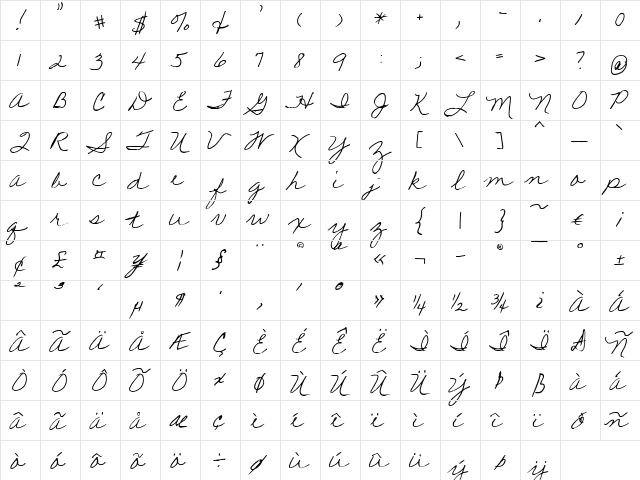
FG Script Elegant Regular
Design Context for FG Script Elegant Typeface
FG Script Elegant flows with the natural rhythm of handwritten lettering, making it ideal for designs that call for warmth and personal expression.
Font Pairing: Combine FG Script Elegant with a simple geometric sans for maximum contrast — the tension between flowing curves and clean structure is a classic typographic pairing.
Pro Tip: Pair FG Script Elegant with a clean sans-serif for supporting text. The contrast between fluid script and geometric structure creates an elegant typographic hierarchy.